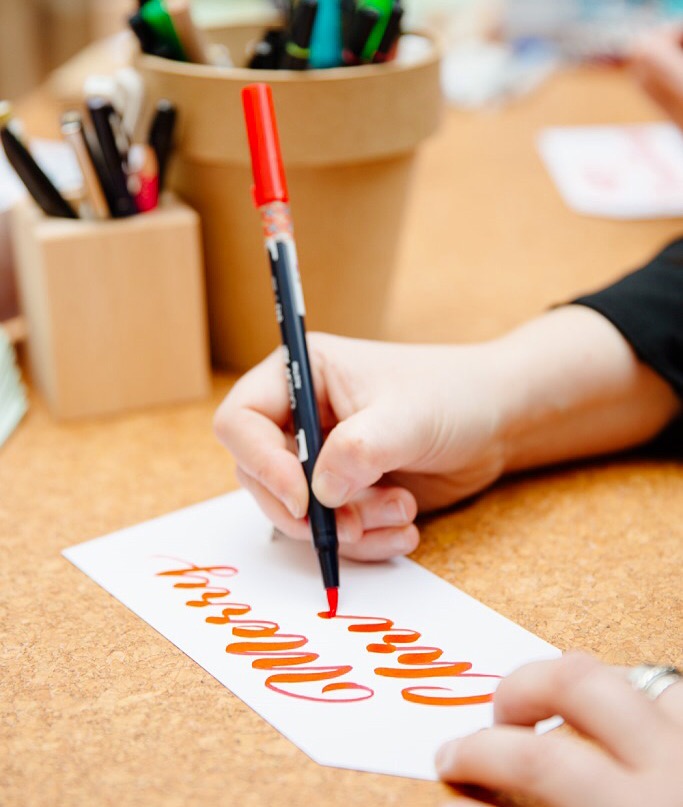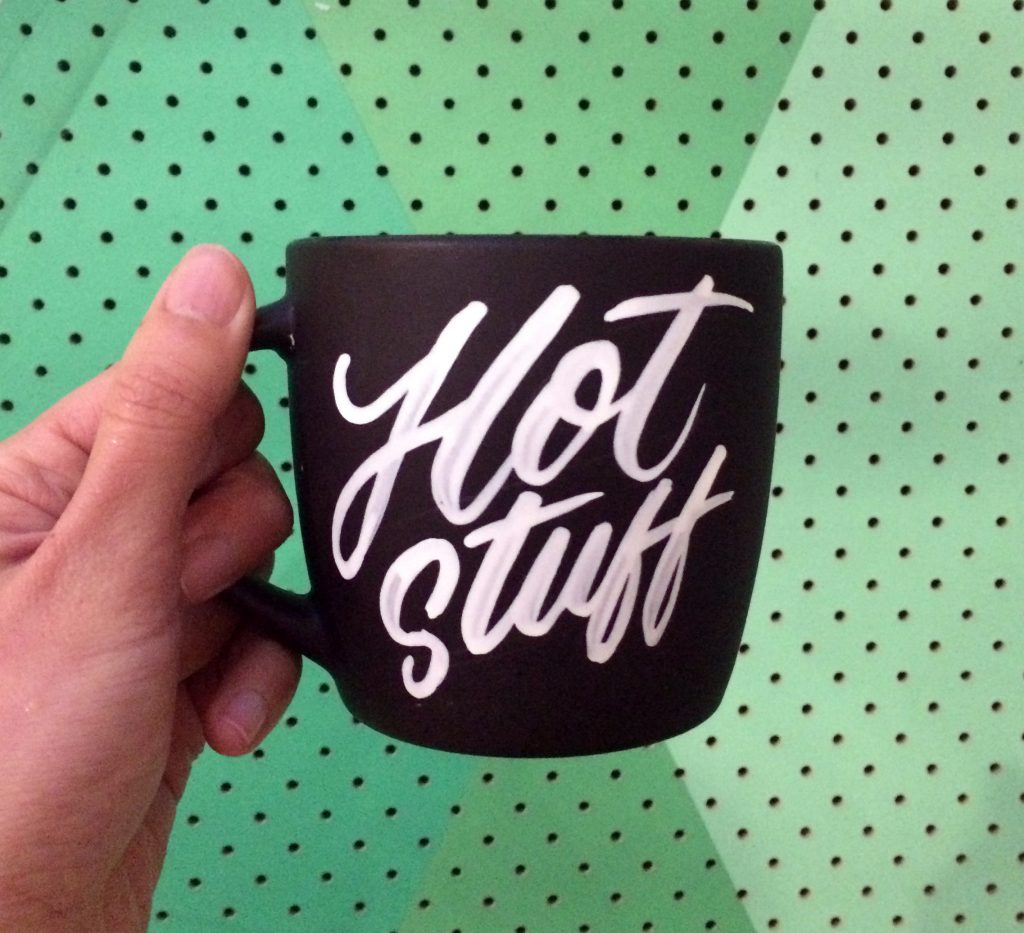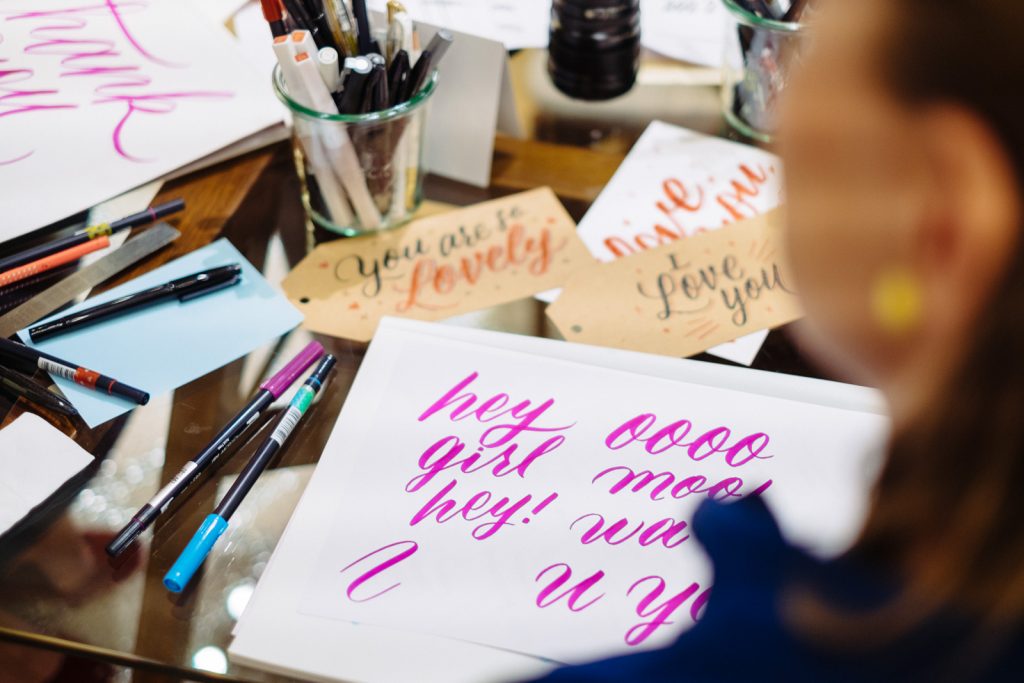
Lettering Legend(s) - The Letterettes Interview
The Letterettes are an all female group of lettering artists based in Melbourne, Australia. The group of four is made up of Eliza Svikulis, Kate Pullen, Wanissa Somsuphangsri and Carla Hackett. The Letterettes ladies formed the group because of a combined passion for creating, lettering and illustrating. Individually they all have skills and experience in graphic design and illustration and when combined in a group those skills are even more amplified, the power of teamwork can be added into the mix too.
The group work side by side applying their individual skills in order to complete fun and varied projects. They use a range of tools, such as brush pens, brushes, tools for calligraphy, tools for illustrative lettering and more. Some of the projects the ladies have worked on recently have been aimed at supporting women, including work for a non-profit organisation to help prevent domestic violence against women, and they created work for a bar to promote National Women's Equality day. They have also created lettering work for Disney Australia too. A little while ago The Letterettes joined Jacky Winter, a renowned agency for artists. The group host workshops and are dedicated to spreading their love of lettering. They inspire others in unique ways when combined but also on their own through other creative work that they do. Each of the four could not be thought of as anything but a 'Lettering Legend' and combined they are one really big legend.
In the following interview, you can learn about working collaboratively with someone, lettering in relation to gender, the advantages of working in a group and more. This interview is a little different to previous 'Lettering Legend' interviews, some of the questions the ladies have answered as a group and some questions they have answered individually.
You’re each granted a super power to help aid your lettering, what power would you choose and how would it help you with your lettering?
Eliza: "Ambidexterity. Equal control with both hands at the same time. How impressive would it be to paint lettering with one hand, while simultaneously painting a drop shadow with the other!" Kate: "Time travel. How cool would that be?! To be able to catch my breath, and practice for hours without a deadline hovering over me would be magical. Although, I can already see me abusing this power. As Spiderman has taught me, 'with great power comes great responsibility' and I just don't know if I'm ready for that." Wanissa: "The ability to clone things! I would clone myself so that I can be at two jobs at the same time. I'd even clone my lettering tools and live with endless art supplies." Carla: "I would love to be ambidextrous. Especially when I am teaching a workshop, I can whip my pen into my other hand and demonstrate. Or even better, write with both hands at the same time!"
How did the Letterettes end up forming? Do you have any advice for those looking to meet other local lettering artists, or advice for those looking to collaborate on projects?
"Our formation happened really organically. We had each been on the live lettering gift tag / custom card circuit individually for a while, and had found we’d often turn up to the same gigs to sit along side each other anyway, having not known that the client had hired more than one letterer. It was during one of these long Christmas card gigs with all four of us present that it occurred to us we could join up officially, and manage the ever-growing live lettering demand as a team. Eliza suggested it to Carla, and hadn’t even finished her sentence before she’d excitedly exclaimed, “Yes, I’ll be in a band with you!”. Kate and Wanissa were just as keen, and before we’d all finished our shift we were already brainstorming girl group names, matching costume ideas (because let’s be honest, that’s a big driving force for us) and rates / business opportunities. Rather than competing with each other, we decided that it’s wiser for us to come together, support each other and work as a collective."
Years ago there were only master penmen. Being an all female group, have you noticed any trends within the modern lettering world when it comes to gender and lettering?
"We’ve heard stories of female Showcard and Ticket Writers in the 60’s and 70’s and the gender inequality they faced in the workplace. Ticket Writers’ skills were often seen as inferior to the male Signpainter skills. We’re lucky there is more equality between male and female skills in the industry these days, and we’re going to keep putting our skills out there by running workshops and choosing to work on meaningful projects that promote women’s equality. If we can inspire and empower other women to start their own lettering business, then we can all benefit in the awareness of the unique skill of lettering and calligraphy."
What do you think the main advantages are when working in a group rather than individually?
Eliza: "Having your go-to girls to sub in / handball enquiries to, or jump on board a job with you is a huge advantage when managing the ever growing demand for lettering. More brains for brainstorming, problem-solving, errand running, and of course more hands for lettering. Equally, having the emotional support of our fellow 'ettes makes both our group and individual endeavours less daunting. Working so closely with other artists allows us to relate our shared experiences – with clients, pricing, materials, and everything else that comes with #freelancelyf." Kate: "Being able to brainstorm, and throw ideas out into a group instead of just at your dog, is incredibly rewarding. Also being able to ask for feedback on the go. Invaluable. I didn't realise how much I'd taken this for granted at Uni!" Wanissa: "Apart from being able to share collective struggles and deadlines, it really is as simple as having more fun when we work as a group. Nothing makes me more energised than putting on our matching uniforms and lettering away. We send each other funny cat GIFs and also know when to lend each other a hand." Carla: "Running your own business can be pretty isolating at times, but since working closely with the 'ettes I have learnt so much! Not only are they there for feedback on a design, but if you are having a sh**y day you can let them know and they can take up the slack. We have a lot of fun too. Especially when you are out on a job, just having someone there to bounce off and share the workload is amazing."
When you're working on a group piece of lettering do you each have your own section to focus on, or do you just go with the flow? Is there more planning involved than when working solo?
"Until recently, most of our projects so far had seen us working on our own piece of lettering before bringing it together or working in a live situation next to each other. We just wrapped a project that was a true collaboration of our lettering. It did take a lot more planning and organising to come together, but we were really happy with the result. All of our lettering was mashed into a pattern with an Eliza script sitting next to a Carla casual and so on. We hope to do more of this kind of work in the future as it’s pretty amazing what we can produce with four of our individual styles coming together!"